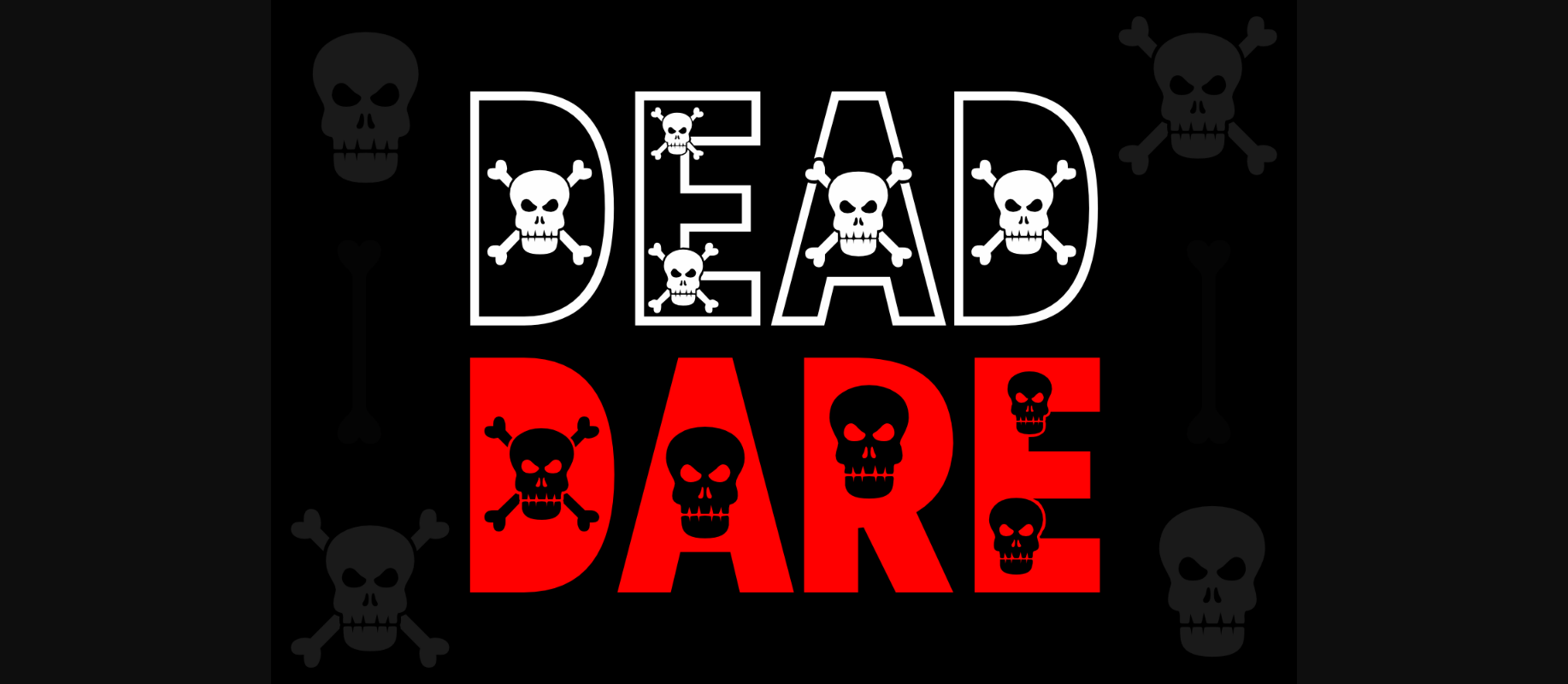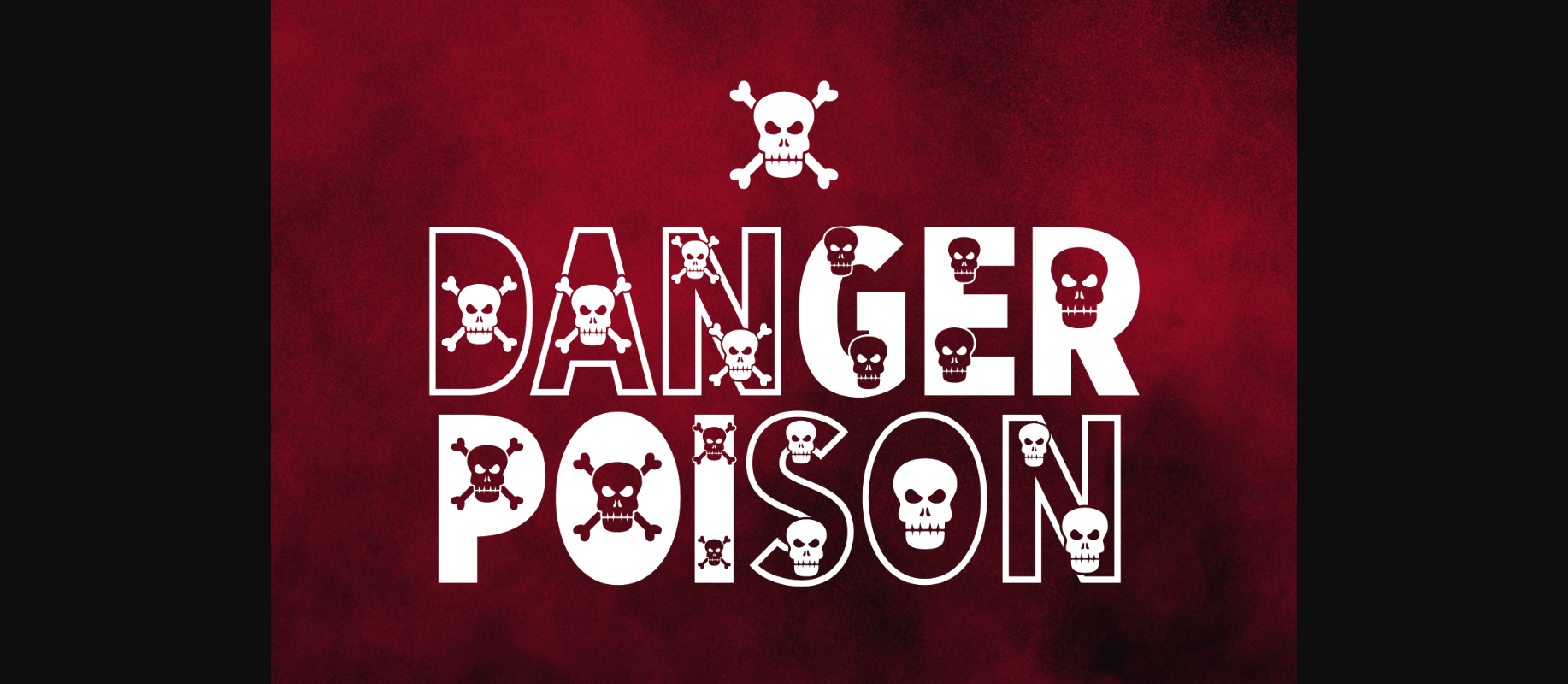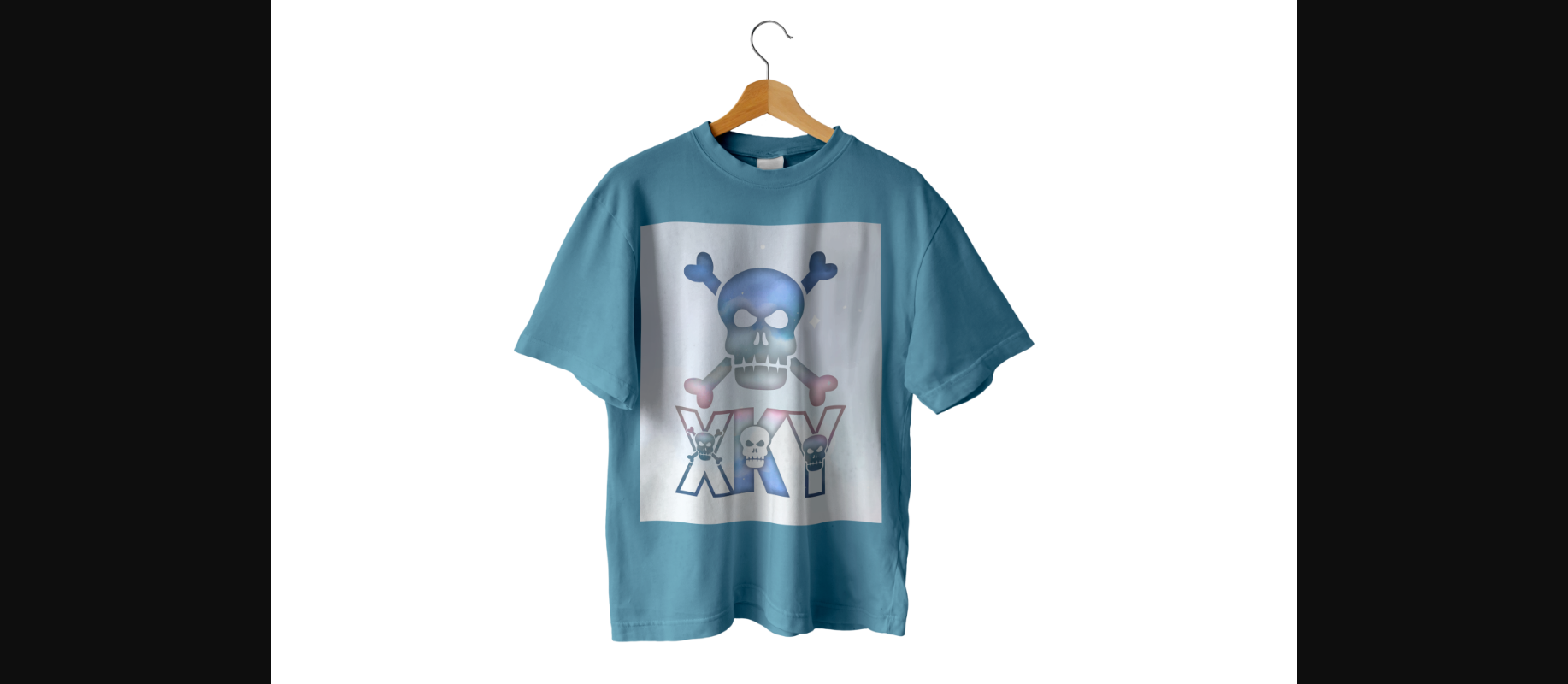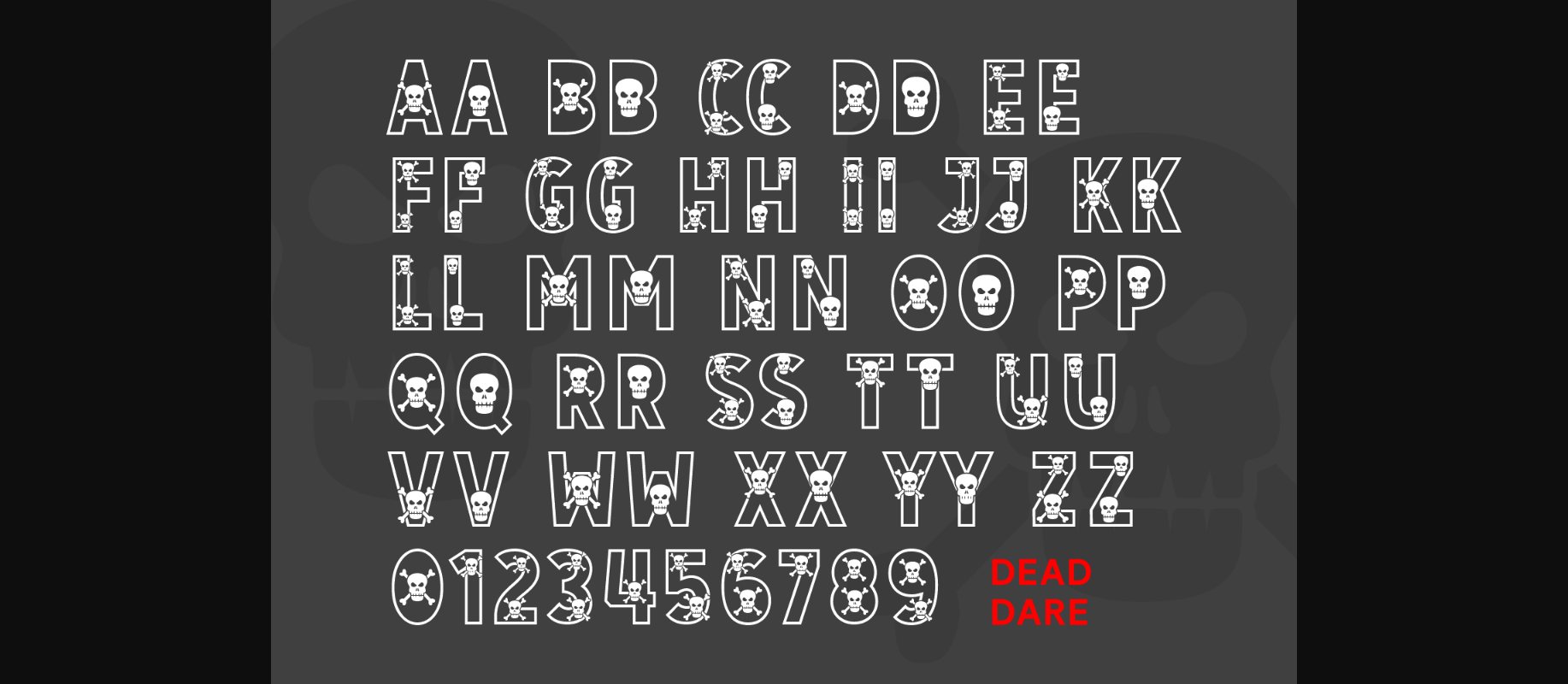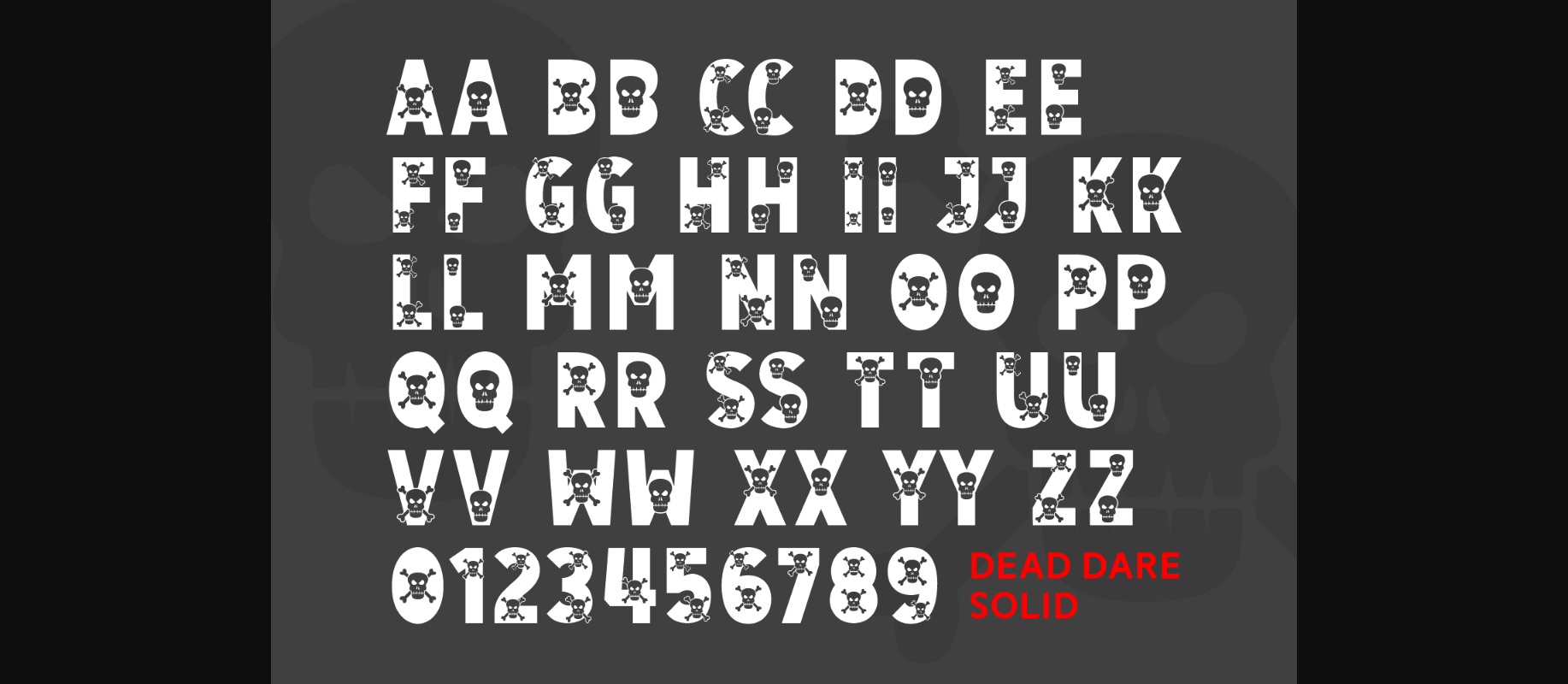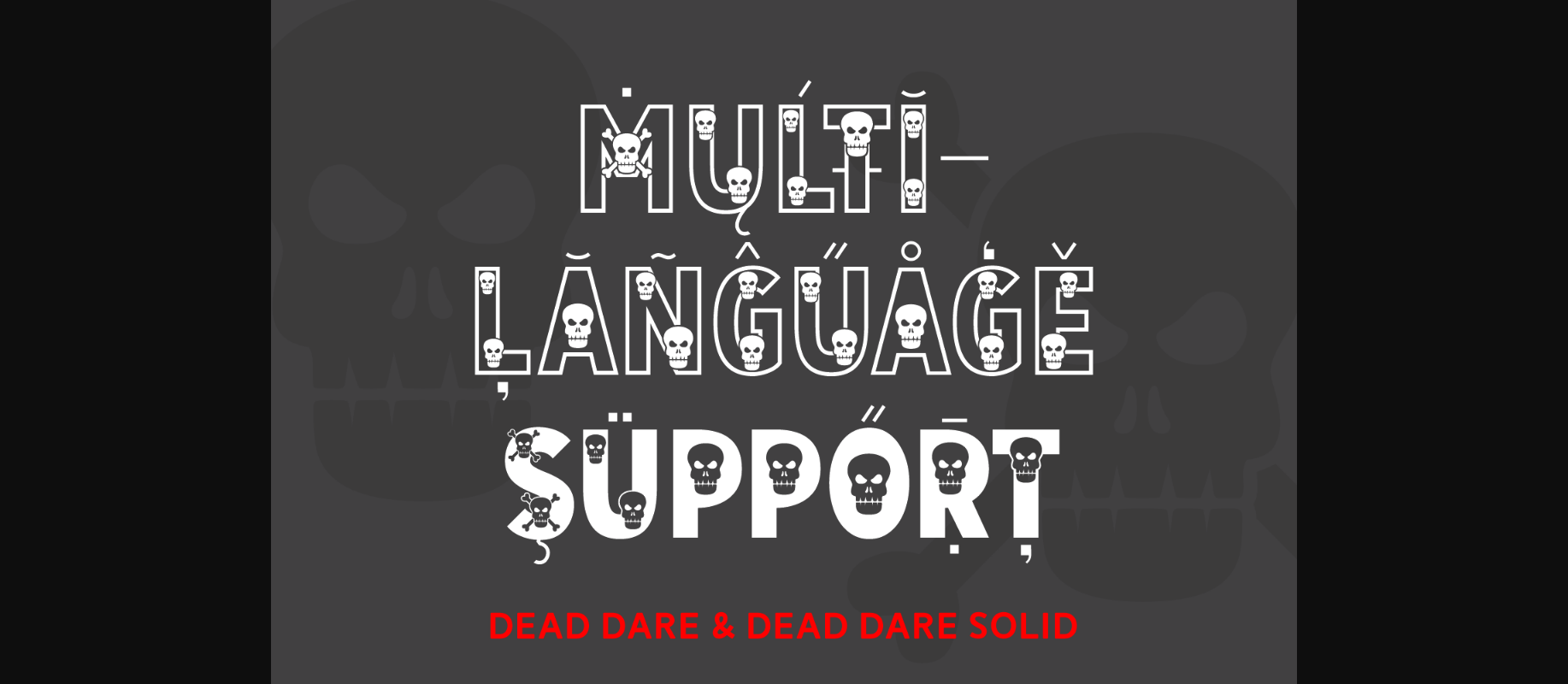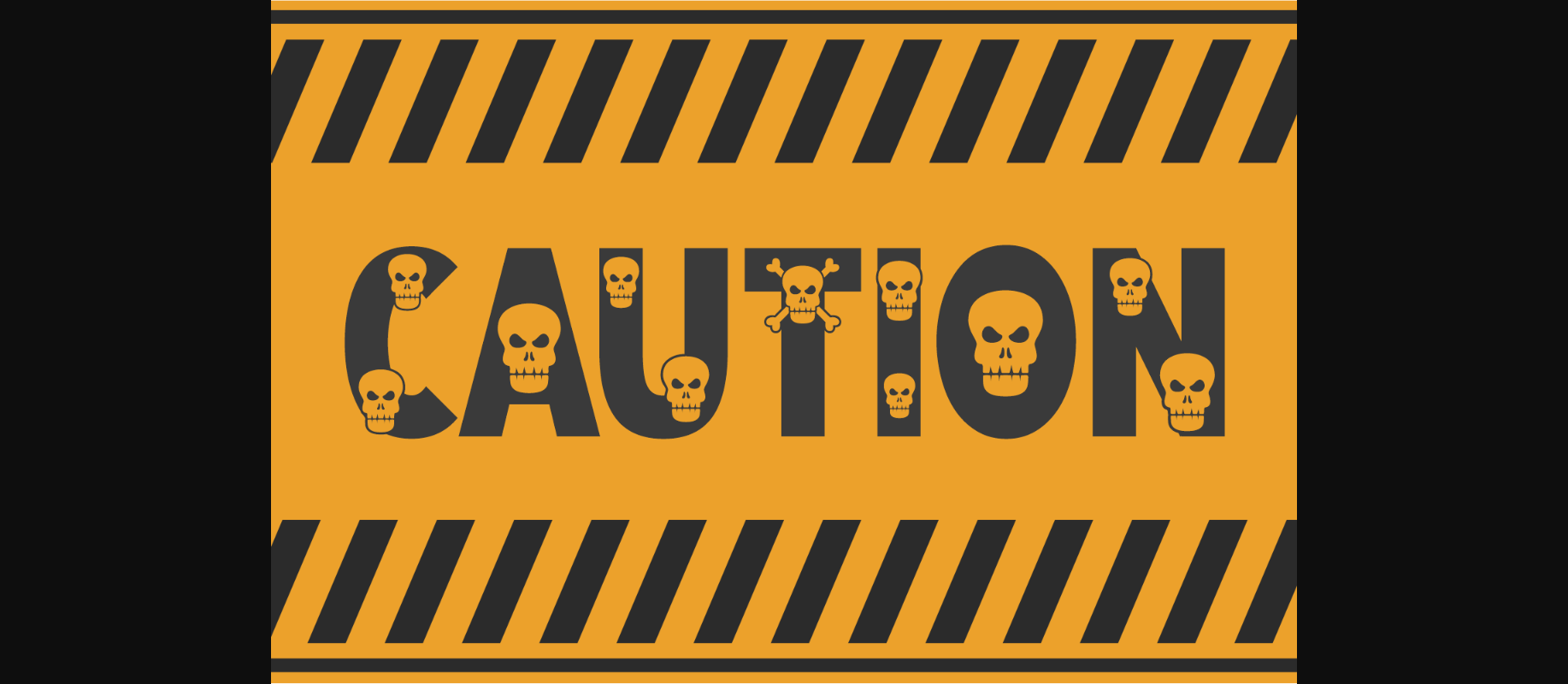
Dead Dare Font
About Dead Dare Font
Dead Dare is a “dangerous” decorative font! You can go ahead and touch this creative font. Dead Dare is a duo decorative font with regular and solid versions. You can see creepy skull designs or skeletons and bones inside the character’s set. Use them for danger signs, warning decorations, Halloween cards, t-shirts, covers, posters, etc.